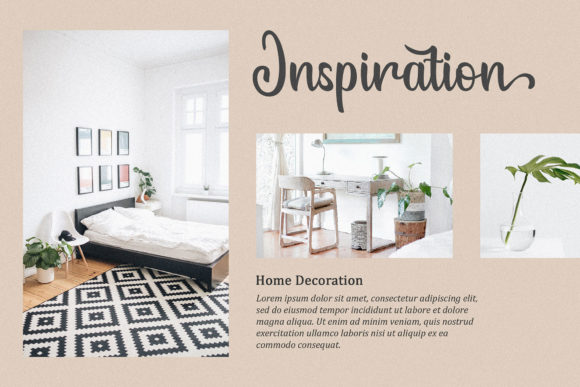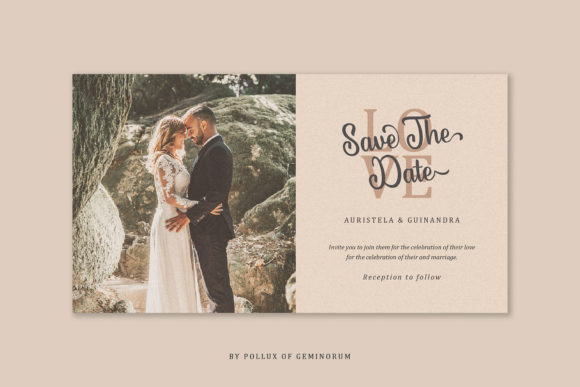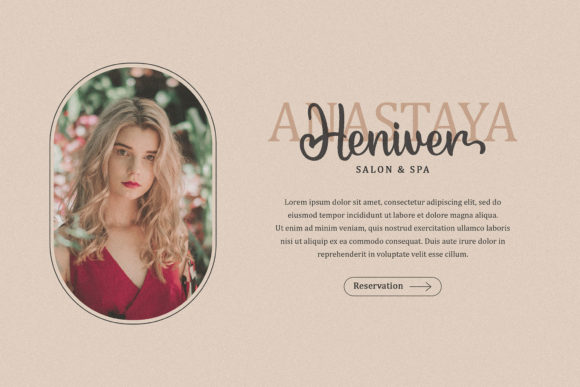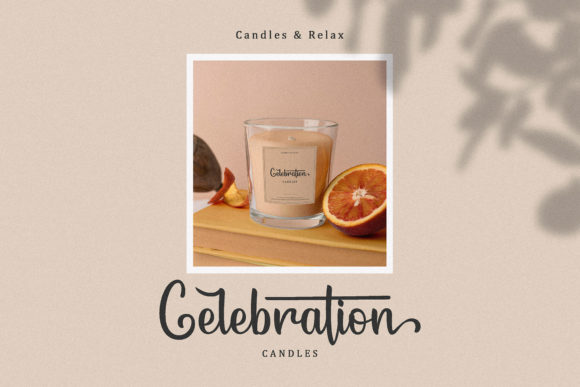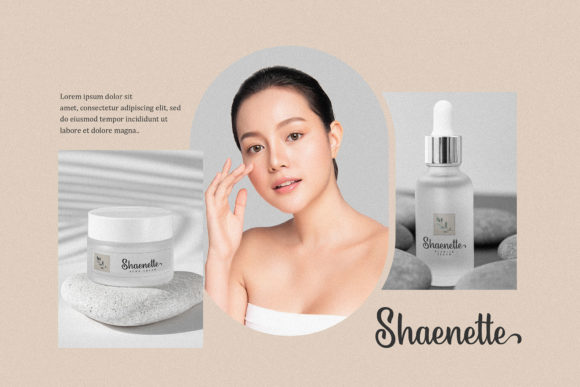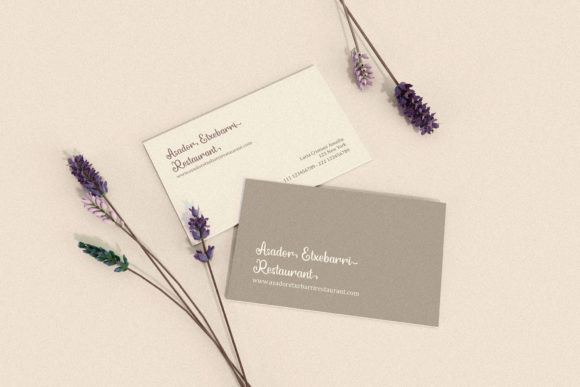
Introduction to Gloria Machetta Font
Gloria Machetta is a chic, trendy script font that emanates confidence and versatility.
Its stylish alternates and ligatures make this font the perfect match for any project Gloria Machetta is PUA encoded which means you can access all glyphs and swashes with ease.
Gloria Machetta Font offers exceptional quality and versatility, making it a valuable addition to your design toolkit. Whether you’re creating for personal projects or commercial use, Gloria Machetta Font delivers professional results.